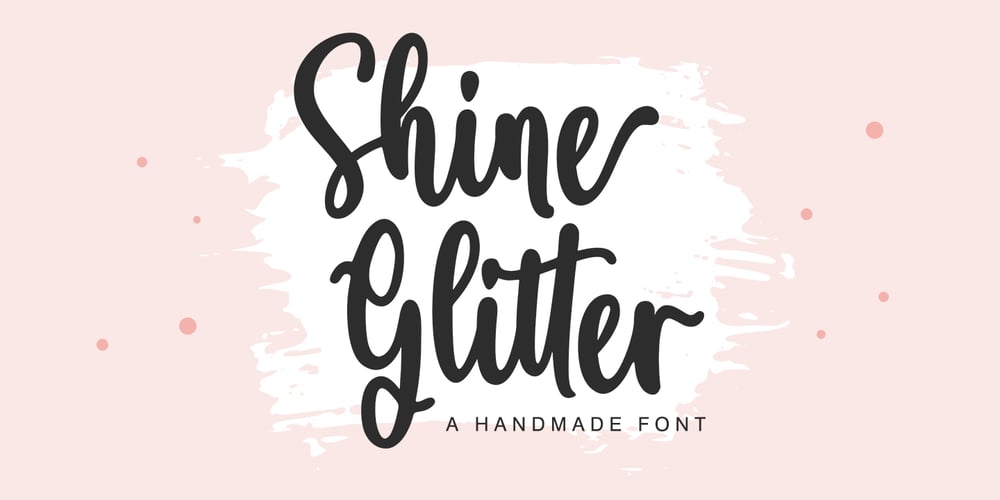
Shine Glitter
Shine Glitter font
Shine Glitter Font Family was designed by Muhajir and published by Skinny Type. Shine Glitter contains 1 styles and family package options. Shine Glitter is a handwritten font with a modern calligraphy feel.Shine Glitter is perfect for modern projects, titles, blogs, logos, branding, invitations and more!Accent characters are included at this time.Thank you!